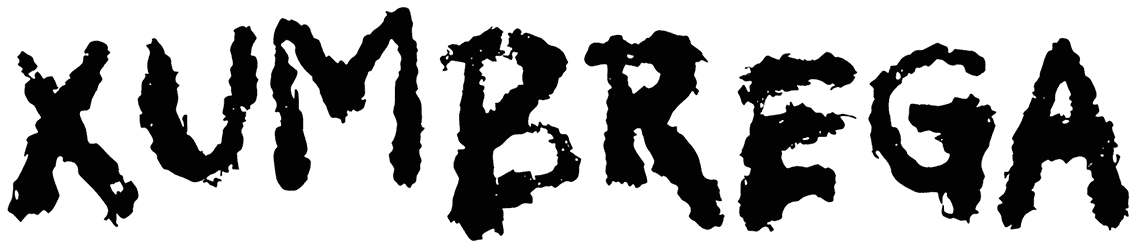
Vtks Xumbrega Font
Designed byVTKS DESIGN
Vtks Xumbrega is a grungy, fancy horror font with two sets of uppercase letters. It’s perfect for all your next Halloween designs. Despite the fact that this spooky and dirty font does not have any lowercase characters, it is still an excellent choice for designing movie posters, website headers, t-shirts, and other merchandise.